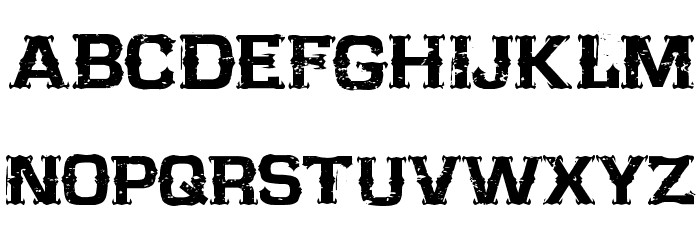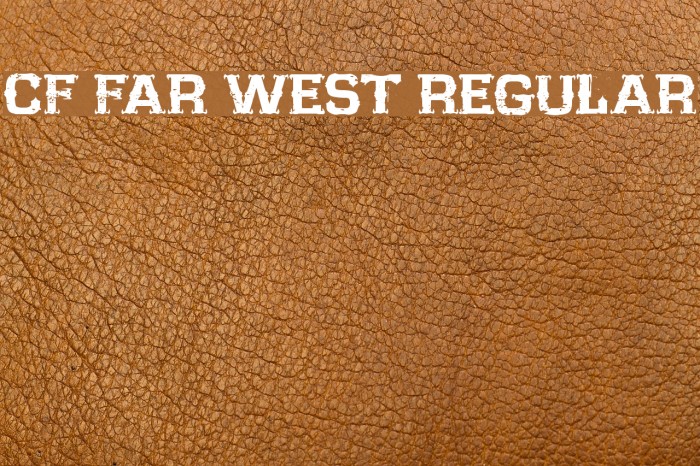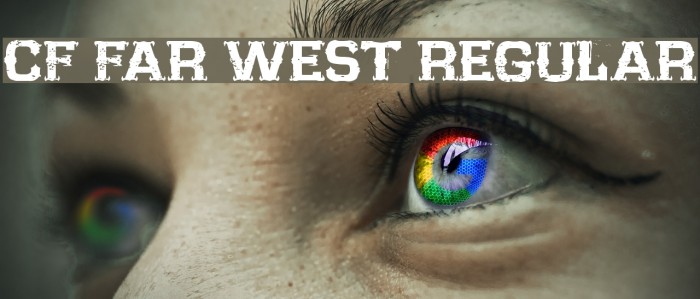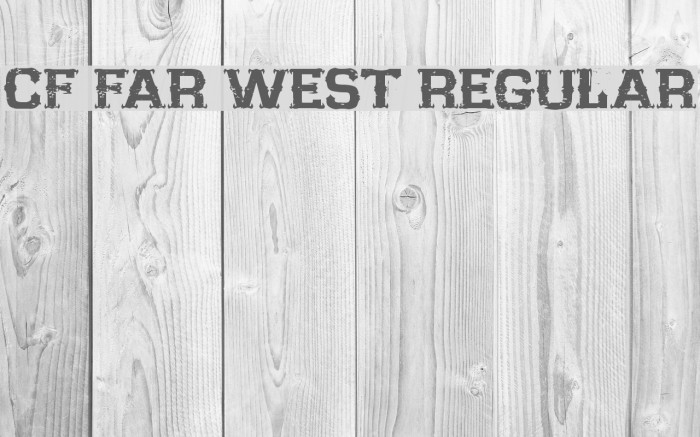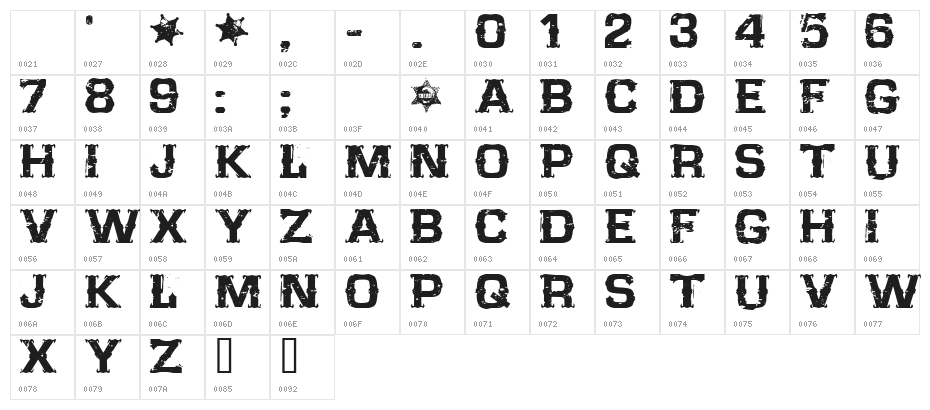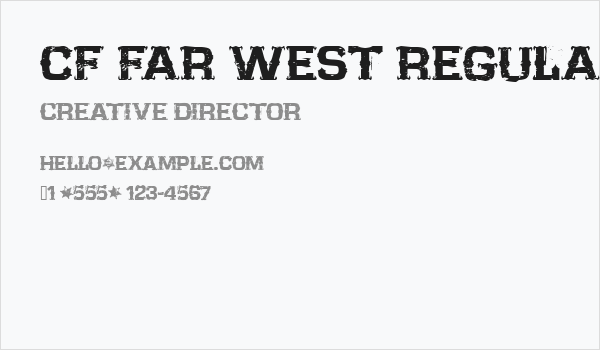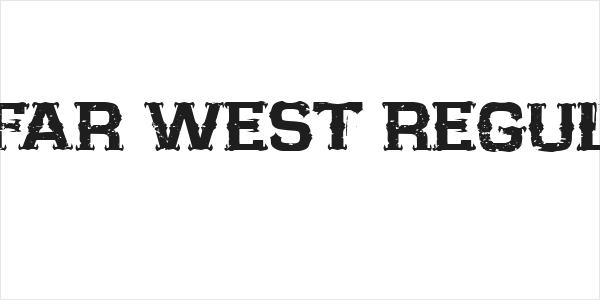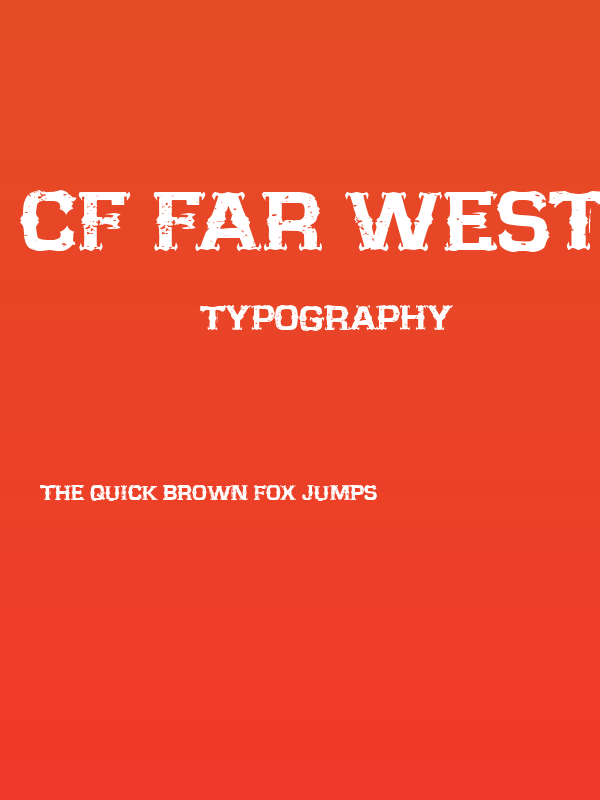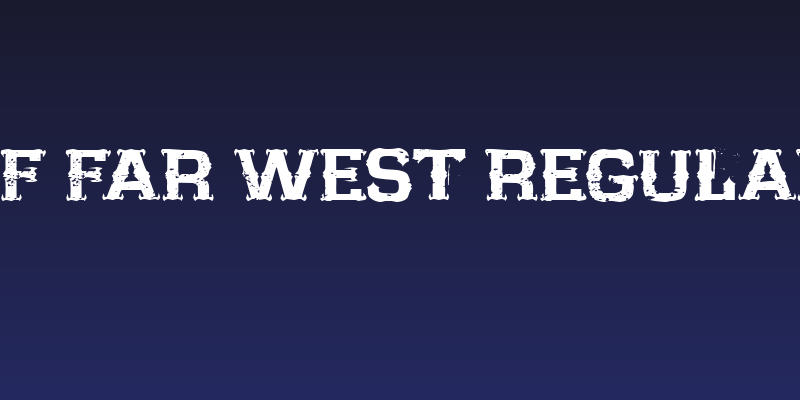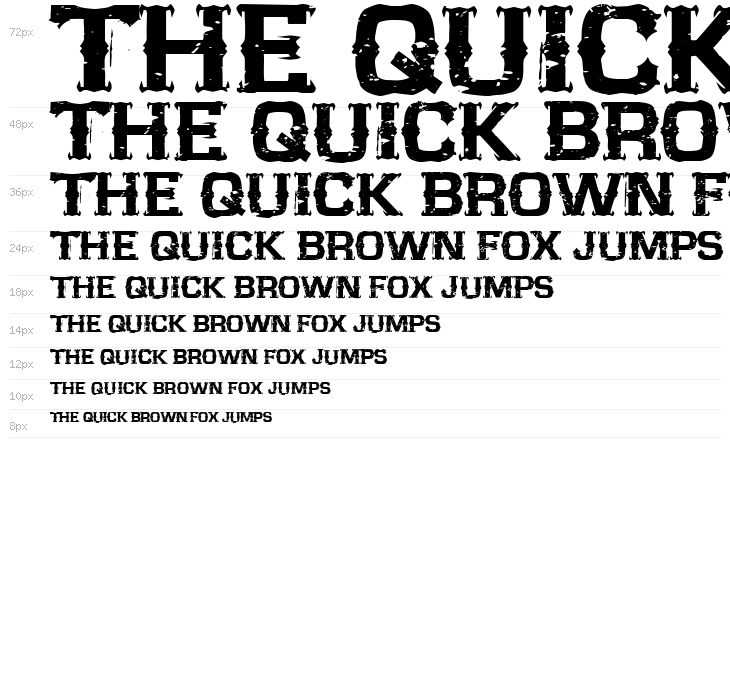
CF Far West Regular Font
This font features a rugged, distressed style that evokes a sense of the Wild West. The characters are bold and heavily textured, with a worn, weathered appearance that suggests age and history. The uppercase letters are prominent and commanding, while the numbers and special characters maintain the same rough aesthetic. The font's unique design elements make it stand out, with irregular edges and a hand-crafted feel that adds to its authenticity. It's perfect for projects that require a vintage or rustic touch, capturing the essence of an old Western saloon or a frontier town.
A rugged, distressed font with a Wild West aesthetic.
- Proposed Projects: Ideal for vintage posters, Western-themed events, rustic branding, and historical recreations.
- Overall Style: Vintage